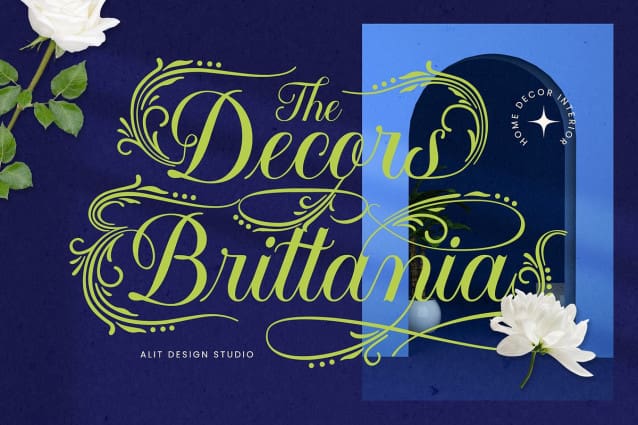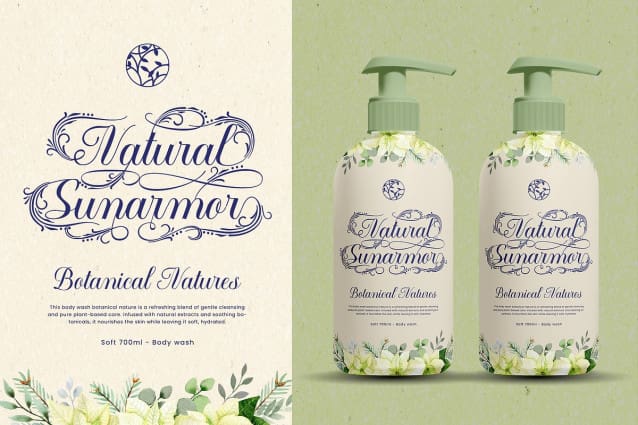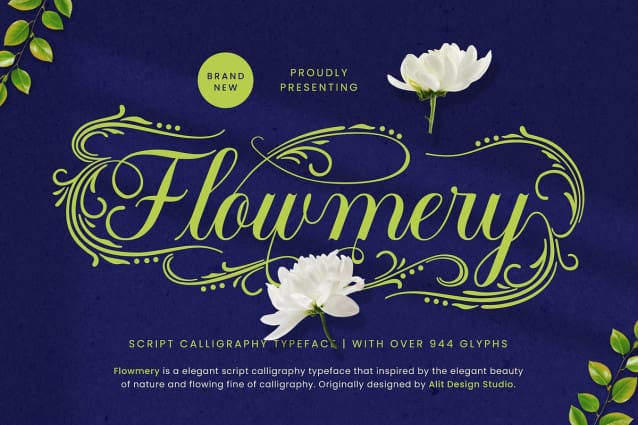
Flowmery Font
Flowmery Font – A Naturally Elegant Calligraphy Script .Proudly presenting Flowmery, an elegant and flowing script typeface that finds its inspiration in the delicate beauty of nature and the timeless art of fine calligraphy. Designed with meticulous attention to detail, Flowmery captures the essence of organic forms and graceful movements, making it the perfect choice for projects that require a touch of sophistication and natural charm.
Flowmery is more than just a font; it’s a complete typographic toolkit. With an extensive collection of over 944 glyphs, it offers a vast playground for creativity. Each letter is designed to connect seamlessly, creating a fluid and harmonious rhythm in your text. The numerous alternate characters, swashes, and ligatures allow you to craft truly unique and custom-looking designs that stand out.
Whether you’re designing an enchanting wedding invitation, creating a memorable brand logo, or styling elegant product packaging, Flowmery provides the versatility and beauty to bring your vision to life.